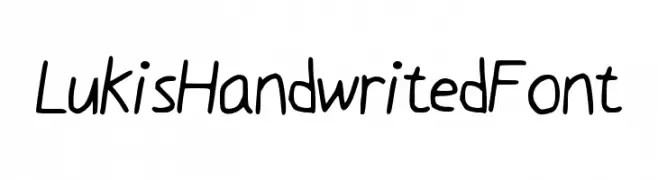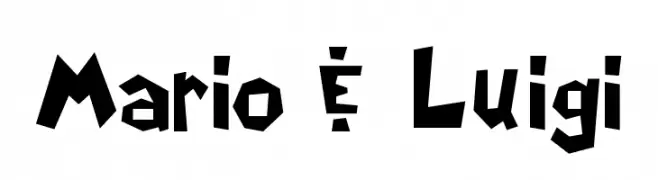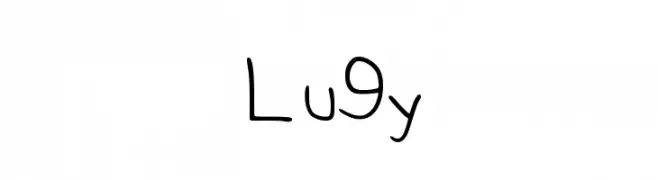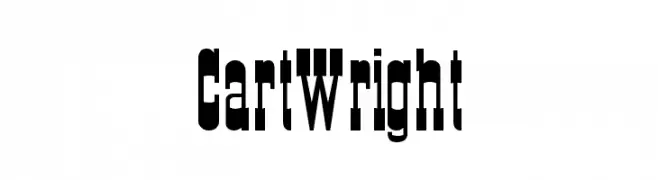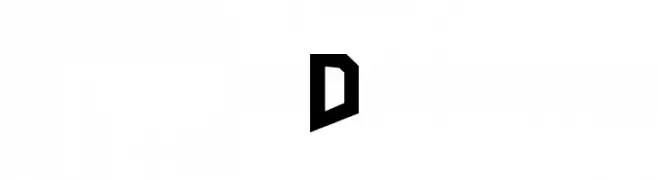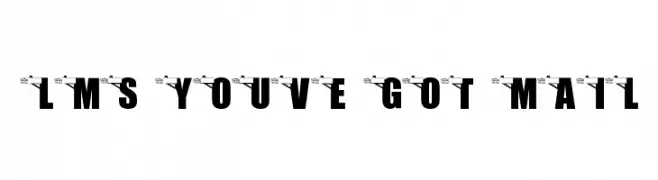
( LunaLRB - www.lunalrb.com )
A whimsical, decorative font with thorn-like embellishments.
( LukiPukii )
A sleek, modern font with clean lines and a minimalist aesthetic.
( LukiPukii )
A casual, handwritten-style font with rounded, consistent strokes.
( LuigiMario17 - mariomonsters.com/font.html )
A bold, angular font with a playful, retro video game vibe.
( LuNiney - luniney.neocities.org )
( Lostvoltype Foundry - creativemarket.com/lostvoltype )
A dynamic, cursive font with fluid strokes and a modern, stylish appearance.
( Lorvad )
A playful, loop-themed font with high contrast and bold design.
( Lorvad )
A bold, condensed font with high contrast and a strong vertical emphasis.
( LordJimIII )
A bold, angular font with a futuristic and edgy design.
( London's Letters - www.londonsletters.com/ )
A playful, decorative font with letters hanging from a clothesline.